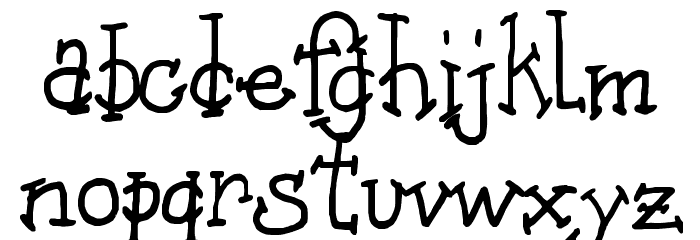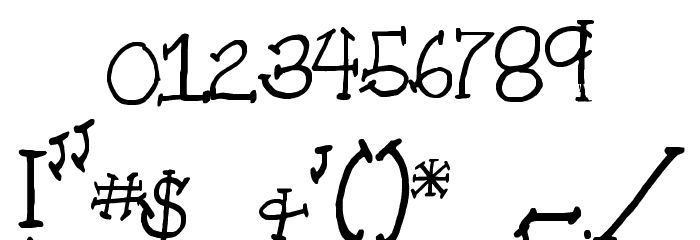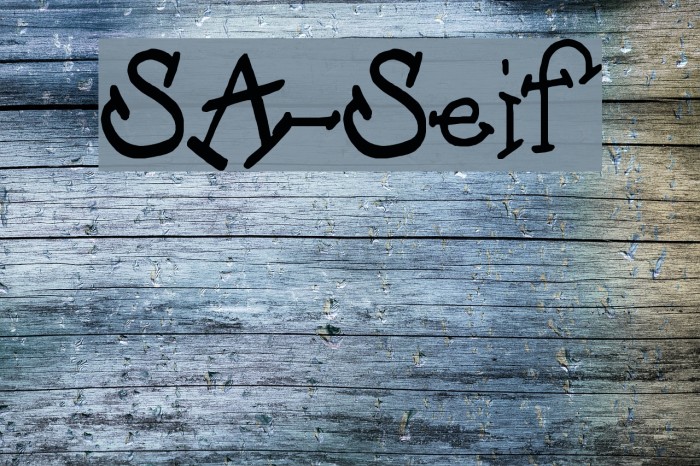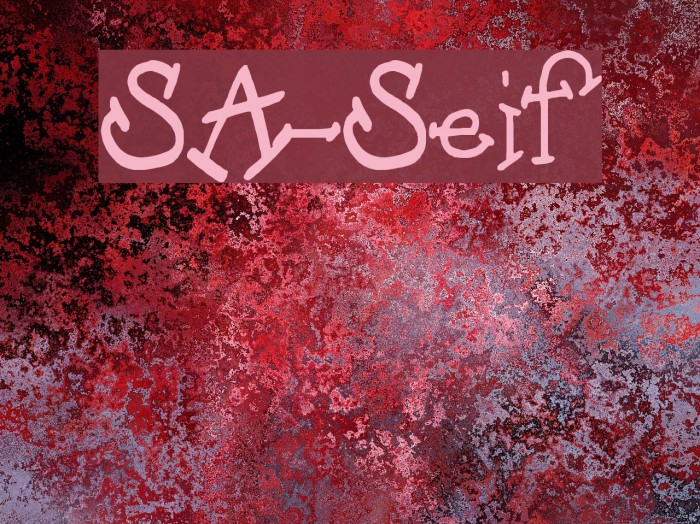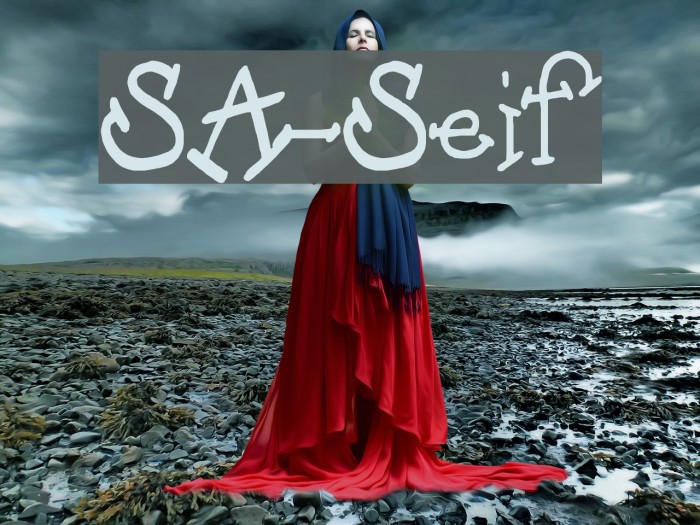
SA-Serif Font
This font exhibits a playful and dynamic style, characterized by its irregular and hand-drawn appearance. The letters have a whimsical quality, with varying stroke thicknesses and a slightly uneven baseline, giving it a lively and informal feel. The uppercase and lowercase letters maintain a consistent style, with exaggerated serifs and unique character shapes that add to its charm. The numerals and special characters follow the same playful design, making the font suitable for creative and artistic projects. Its distinctive style makes it stand out, ideal for capturing attention and conveying a sense of fun and creativity.
A playful, hand-drawn serif font with irregular strokes and whimsical character shapes.